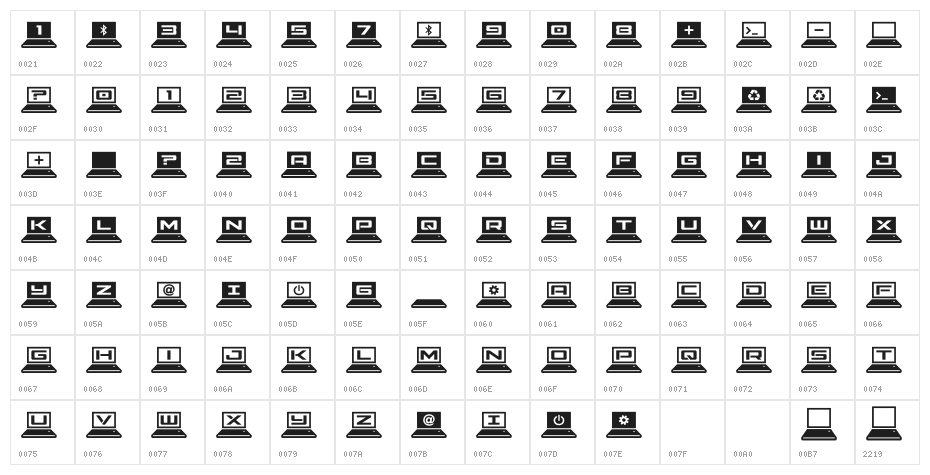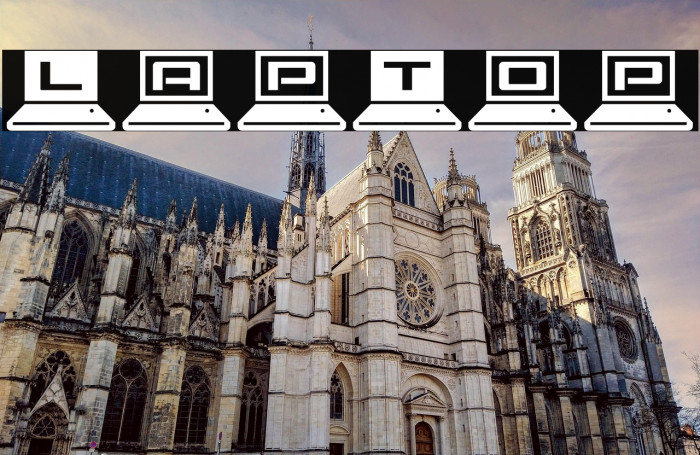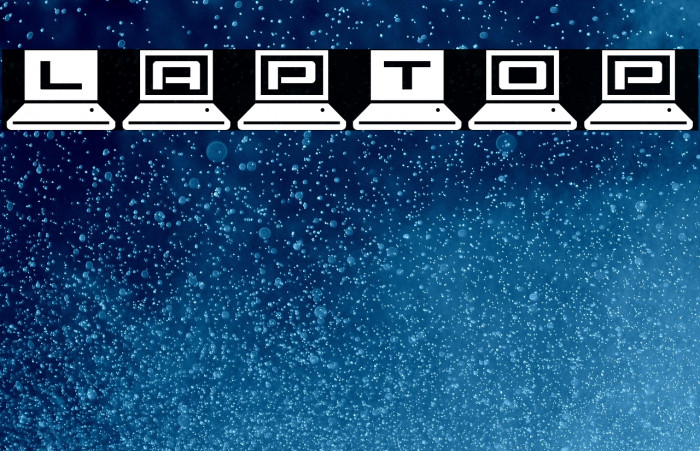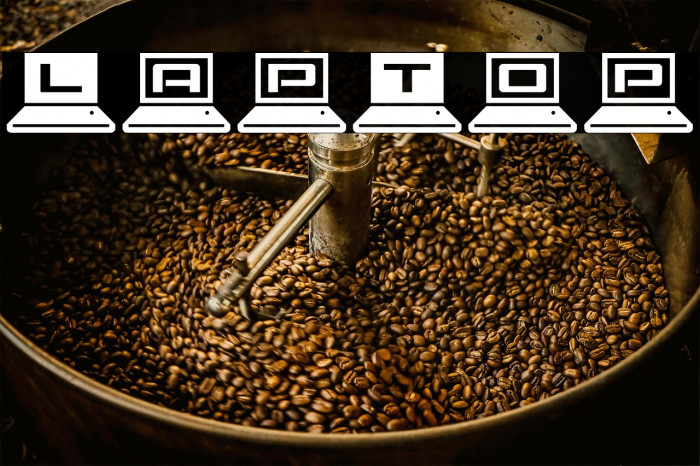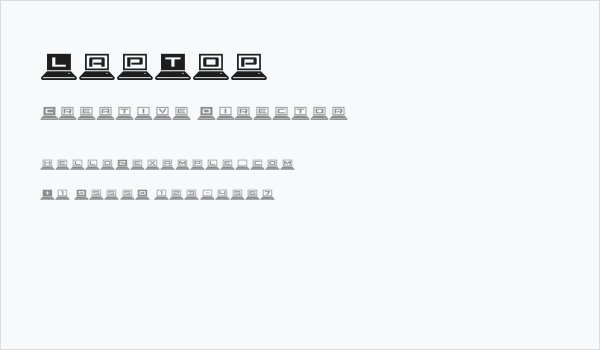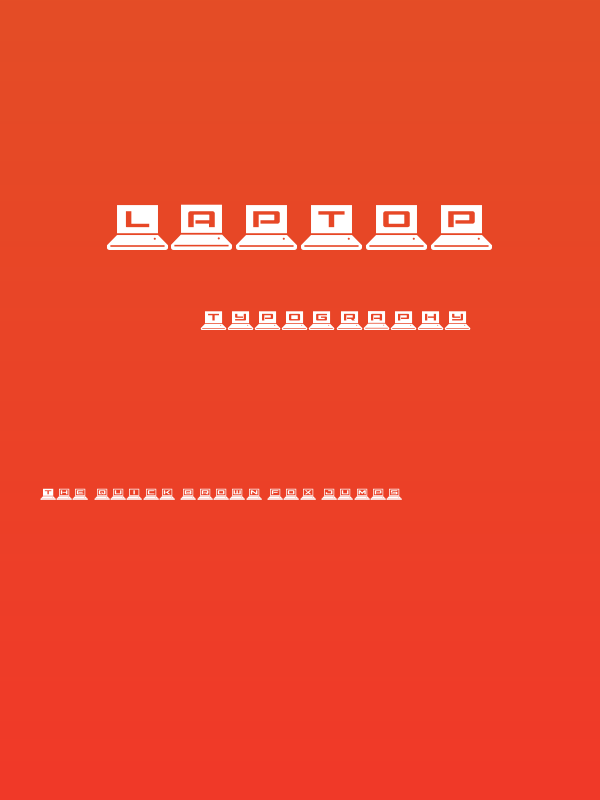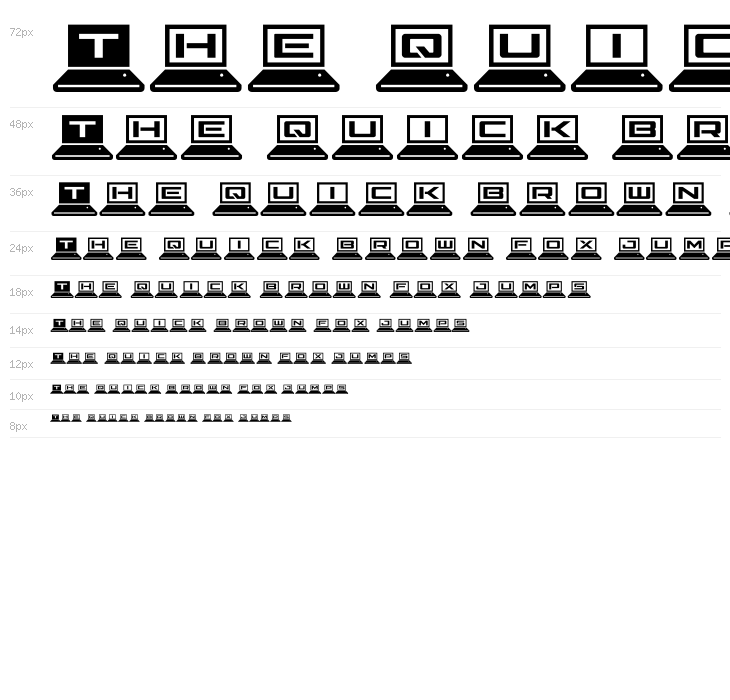
LapTop Font
LapTop Description
This font features a unique design where each character is displayed within a stylized laptop icon, creating a tech-inspired aesthetic. The characters are bold and geometric, with a modern and digital feel. The uppercase letters are prominently displayed, while the numbers and special characters maintain the same consistent style. The font is highly decorative, making it suitable for projects that require a tech-savvy or futuristic theme. The overall appearance is clean and structured, with a consistent weight and width across all characters.
| Proposed Projects | Ideal for tech-related branding, digital media, educational materials, and futuristic designs. |